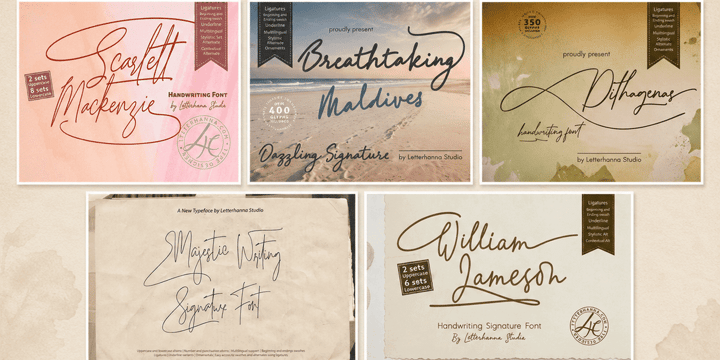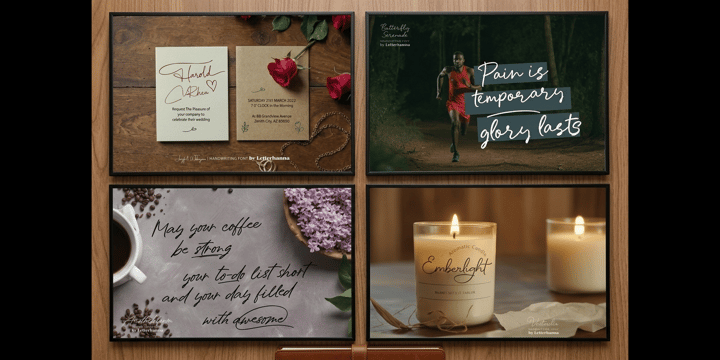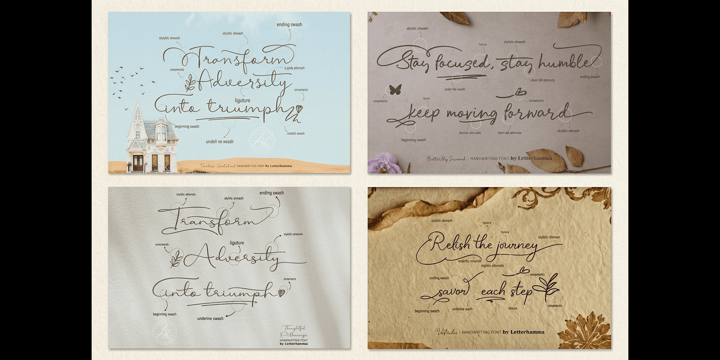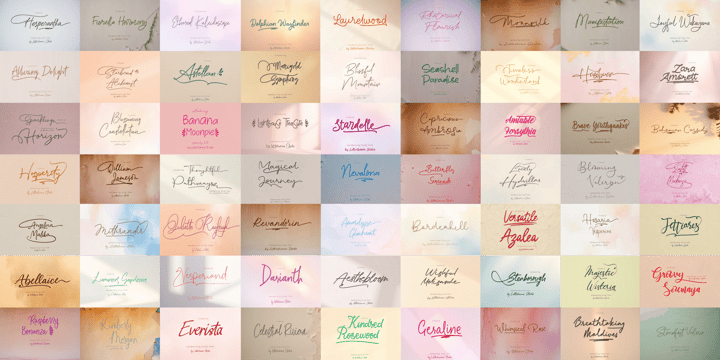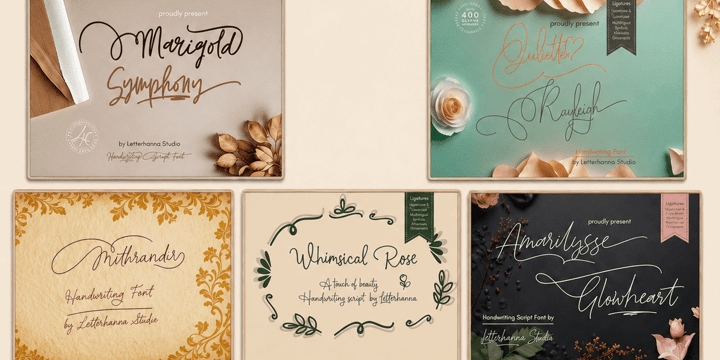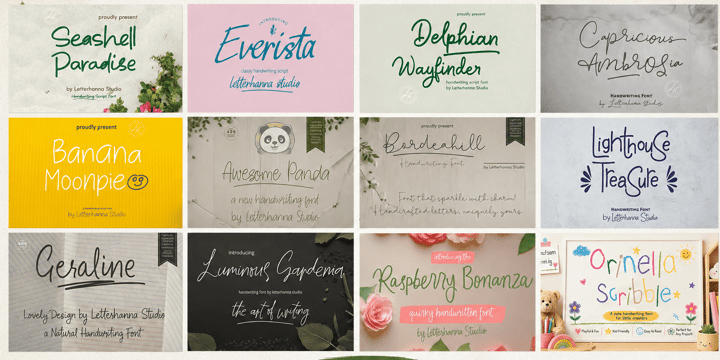
Script and Display Fonts
Meet the ultimate creative toolkit from Letterhanna Studio — a carefully curated collection of 90++ versatile fonts spanning every style you'll ever need. Whether you're designing for a luxury brand, a street-level streetwear drop, a handcrafted wedding suite, or a bold music festival poster, this bundle has the exact typeface to match your vision.
Inside, you'll find a rich variety of styles: gritty brush scripts for urban and tattoo aesthetics, elegant handwritten fonts for boutique and bridal markets, bold display faces for packaging and editorial work, playful handcrafted styles for artisan and children's brands, and everything in between. Each font was designed with real commercial use in mind — clean kerning, full character sets, and files ready to drop straight into your workflow.
This bundle isn't a random assortment. It's a curated creative library — the kind that replaces dozens of individual purchases and covers virtually every client brief that lands on your desk. From rough-edged grunge to soft feminine scripts, from stamp-textured display fonts to whimsical hand-lettered titles, every style is represented.